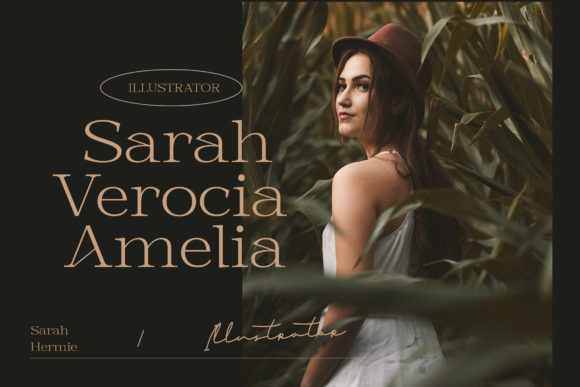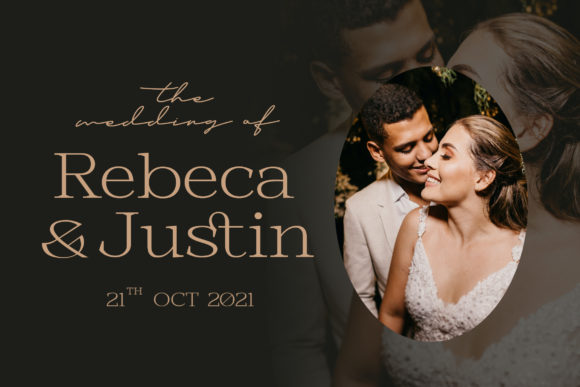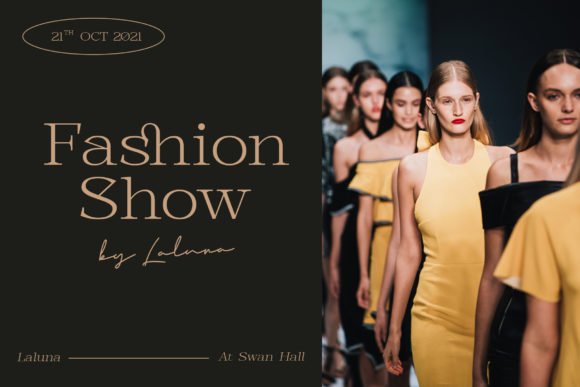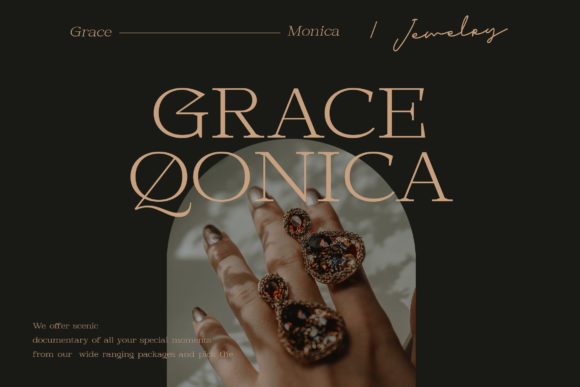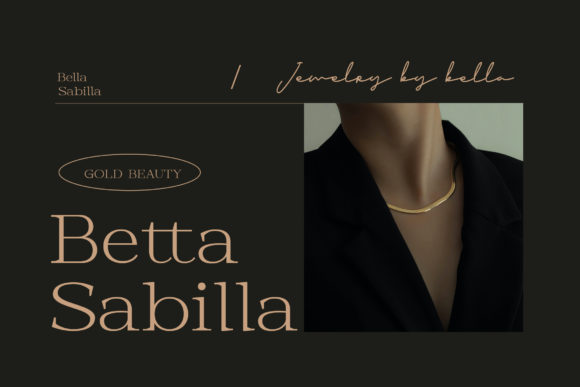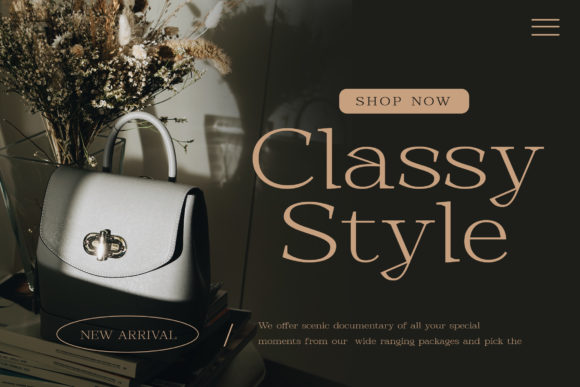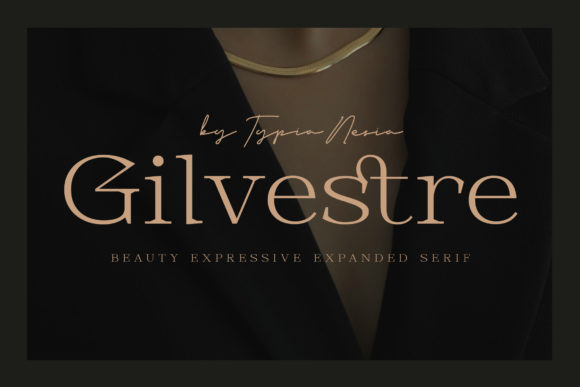
Gilvestre Font: Elevate Your Design with Elegance and Sophistication
In the world of typography, a font can make or break a design. For those seeking to add a touch of luxury, sophistication, and elegance to their projects, Gilvestre Font is an excellent choice. This stunning serif font is perfect for a wide range of applications, from high-end branding to editorial design, and is sure to elevate your creative ideas to new heights.
What is Gilvestre Font?
Gilvestre Font is a beautifully crafted serif font, designed to bring a sense of refinement and poise to any design. Its elegant lines, precise curves, and classic structure make it an ideal choice for those seeking to create a sophisticated and luxurious visual identity. Whether you’re working on a luxury logo, a high-end branding campaign, or a stylish editorial design, Gilvestre Font is the perfect tool to help you achieve your creative vision.
Perfect for Luxury Brands and Designs
Gilvestre Font is particularly well-suited for luxury brands and designs that require a high level of sophistication and elegance. Its refined features and classic structure make it an excellent choice for:
- Luxury logos and branding
- Classy editorial design
- Women’s magazines
- Cosmetic brands
- Fashion promotions
- Art gallery branding
- Museums
- History and architecture albums
- Boutique branding
- Stationery design
- Blog design
- Modern advertising design
- Card invitations
- Art quotes
- Home decor
- Book/cover titles
- Special events
Why Choose Gilvestre Font?
So why choose Gilvestre Font for your next design project? Here are just a few reasons:
- Elegance and sophistication: Gilvestre Font exudes luxury and refinement, making it perfect for high-end designs.
- Versatility: This font is suitable for a wide range of applications, from branding and editorial design to advertising and more.
- Classic structure: Gilvestre Font’s classic structure ensures that it will remain timeless and relevant for years to come.
- Easy to read: Despite its elegant lines, Gilvestre Font is easy to read, making it perfect for body text and headlines.
Tips for Using Gilvestre Font
Here are a few tips for using Gilvestre Font in your designs:
- Use it sparingly: Gilvestre Font is a statement font, so use it sparingly to avoid overwhelming your design.
- Pair it with other fonts: Experiment with pairing Gilvestre Font with other fonts to create a unique and interesting visual identity.
- Experiment with colors: Try out different colors and textures to add depth and interest to your design.